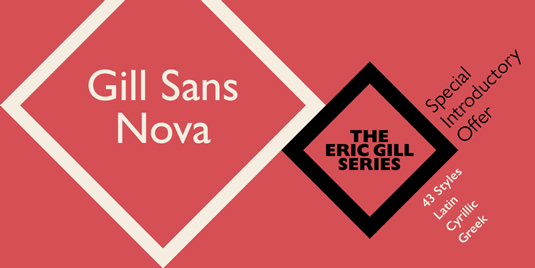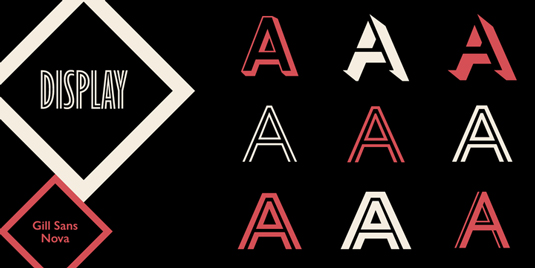
Font of the day: Gill Sans Nova
Every day we showcase the best fonts on the web. Today it's Gill Sans Nova by George Ryan.
Gill Sans Nova by George Ryan
Monotype Studio designer George Ryan is the man behind today's typeface of choice Gill Sans Nova. "Gill Sans was fast to strike a chord with people after its initial 1928 release and quickly became popular," Ryan comments on MyFonts. "It's been adapted for every publishing technology, from mechanical typesetting to digital imaging – always receiving the best treatment from Monotype in each iteration.
"This is especially true with all that we've added to the new series, while still retaining the familiarity of Gill Sans. My goal was to ensure clarity across digital environments, add missing weights, and bring more personality to the family with new display fonts, as well as Gill-inspired alternate characters."